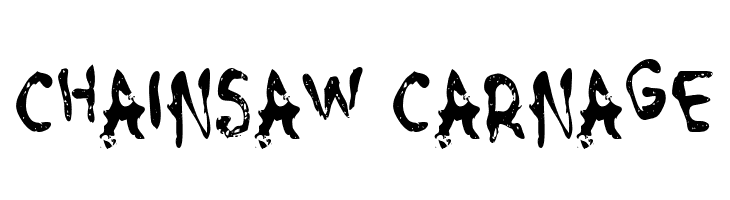
A rugged, distressed font with a chaotic, edgy appearance.
A bold, grungy font with a distressed, paint-splattered effect.
A bold, playful font with cartoonish outlines and whimsical patterns.
A futuristic 3D laser-cut italic font with bold, angular outlines.
A bold, playful handwritten font with rounded edges and consistent weight.
A bold, geometric font with a modern and striking appearance.
A bold, modern font with clean, geometric shapes and consistent line thickness.
A bold, geometric font with a futuristic and modern design.
A hand-drawn, sketch-style font with textured, playful lines.
An elegant, flowing script font with ornate flourishes and a cohesive cursive style.